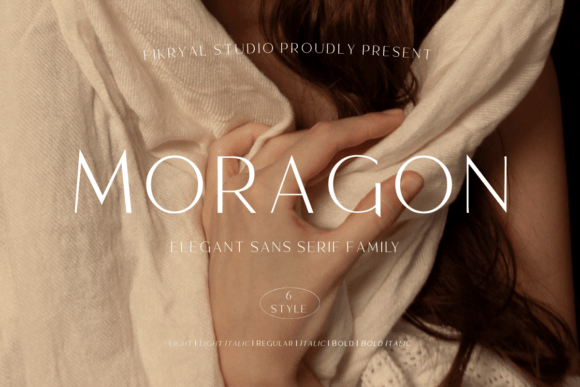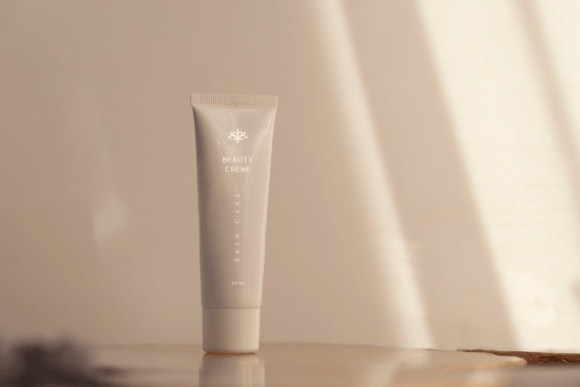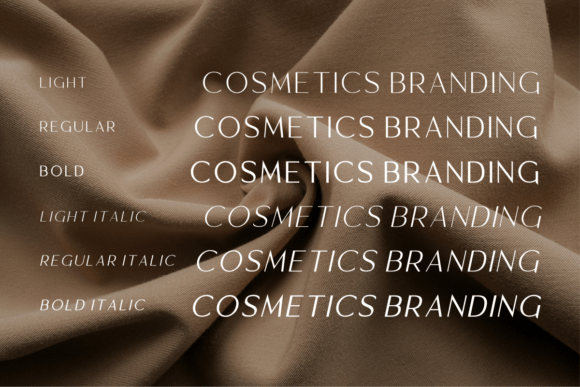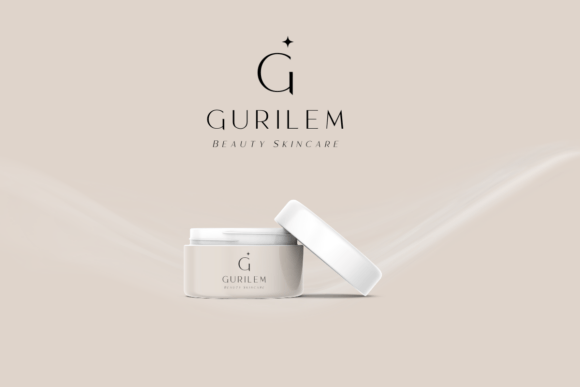
Moragon Font: Elegant Sans Serif for Modern Logo Design & Branding
About the Moragon Font
Step up your design game with Moragon Font, a font that exudes confidence and style. Moragon is an elegant sans-serif font family, designed to provide maximum flexibility for a variety of design projects. Consisting of six variations: Light, Light Italic, Regular, Italic, Bold, and Bold Italic, this font provides the perfect solution for any typography need.
Moragon’s elegant nature makes it ideal for headlines, branding materials, and short-form text such as posters or packaging design where its refined aesthetics shine. Its versatility across weights allows for effective hierarchy within these applications. However, its delicate details might become less legible in smaller sizes or extensive body text, making it unsuitable for long paragraphs or UI elements requiring high readability.
Its sophisticated personality pairs well with complementary fonts. Consider pairing Moragon with a warm serif like Garamond for a classic, balanced feel, or a geometric sans-serif like Futura for a modern, minimalist aesthetic. A script font like Allura could add a touch of handwritten elegance to invitations or branding projects.
Moragon projects a feeling of sophisticated modernity, conveying both elegance and approachability. This makes it a strong choice for brands aiming for a refined yet approachable image.
Moragon Font Usage Examples
Moragon Font Example